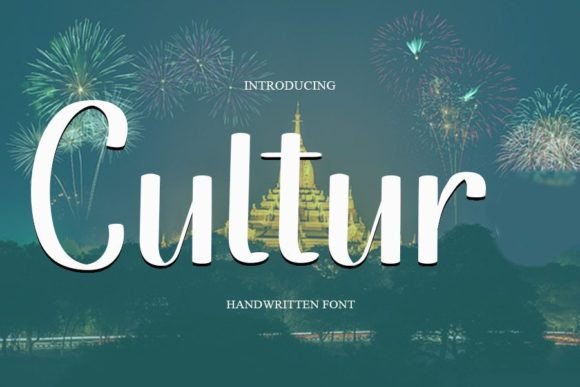
Cultur Font: Elevate Your Designs with a Modern Handwritten Twist
In the world of typography, a good font can make all the difference in elevating your design projects from ordinary to extraordinary. If you’re on the hunt for a font that combines the elegance of classic calligraphy with a modern, fresh vibe, look no further than Cultur Font. This cool handwritten font is designed to bring a touch of sophistication and style to your creations, making it an ideal choice for designers and crafters alike.
The Inspiration Behind Cultur Font
Cultur Font draws its inspiration from the timeless beauty of classic calligraphy, yet it boasts a distinctly modern twist. The result is a font that feels both contemporary and rooted in tradition. The designer aimed to create a typeface that would strike a perfect balance between being too thin and too thick, ultimately achieving a harmonious blend of elegance and readability.
Key Features of Cultur Font
- Balanced and Varied: Cultur Font is characterized by its balanced strokes and varied letterforms, which contribute to its unique charm and versatility.
- Modern Vibe: With its clean lines and spotless form, this font exudes a modern vibe that’s perfect for designs that require a fresh, updated look.
- Spotless Form: The font’s spotless form ensures that your designs look crisp and polished, making it suitable for both digital and print applications.
- Handwritten Feel: Despite its modernity, Cultur Font retains a handwritten feel that adds a personal touch to your projects.
Why Choose Cultur Font?
So, what sets Cultur Font apart from other fonts in its category? Here are a few compelling reasons why designers and crafters are gravitating towards this stylish typeface:
- Versatility: Cultur Font’s versatility makes it an excellent choice for a wide range of design projects, from branding and packaging to web design and social media graphics.
- Elegance: The font’s elegant letterforms and balanced strokes lend a touch of sophistication to any design, making it perfect for projects that require a level of refinement.
- Readability: Cultur Font is designed to be highly readable, even at smaller sizes, ensuring that your message gets across clearly and effectively.
Using Cultur Font in Your Designs
Ready to incorporate Cultur Font into your design workflow? Here are some practical tips on how to make the most of this beautiful typeface:
- Pair it with Other Fonts: Experiment with pairing Cultur Font with other fonts to create visually appealing contrast and add depth to your designs.
- Play with Sizes: Don’t be afraid to vary the font size to create visual hierarchy and emphasize key elements in your design.
- Customize: Consider customizing the font to fit your brand’s unique style, such as adjusting the letter spacing or adding a custom color.
Cultur Font is a stylish and versatile typeface that offers a perfect blend of modernity and elegance. Whether you’re a designer looking to elevate your branding projects or a crafter seeking to add a personal touch to your DIY creations, this cool handwritten font is sure to impress. With its balanced and varied letterforms, spotless form, and modern vibe, Cultur Font is an excellent addition to any design toolkit.